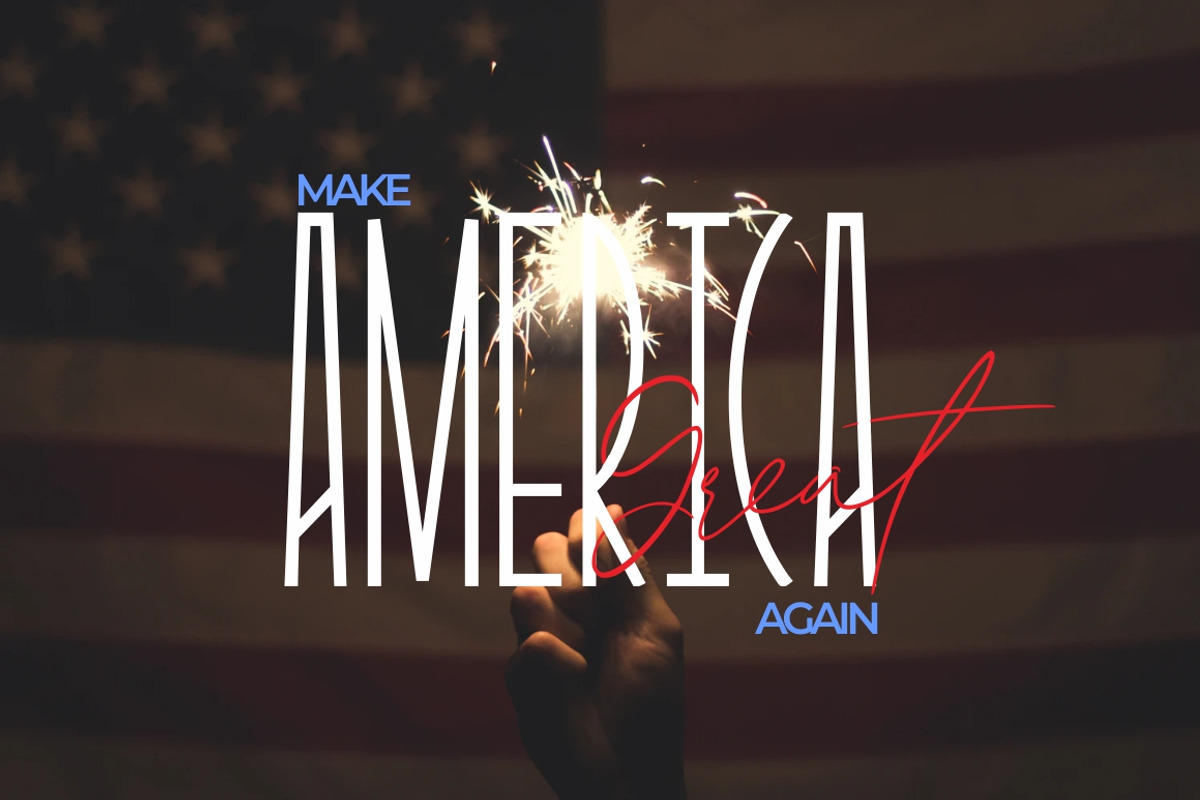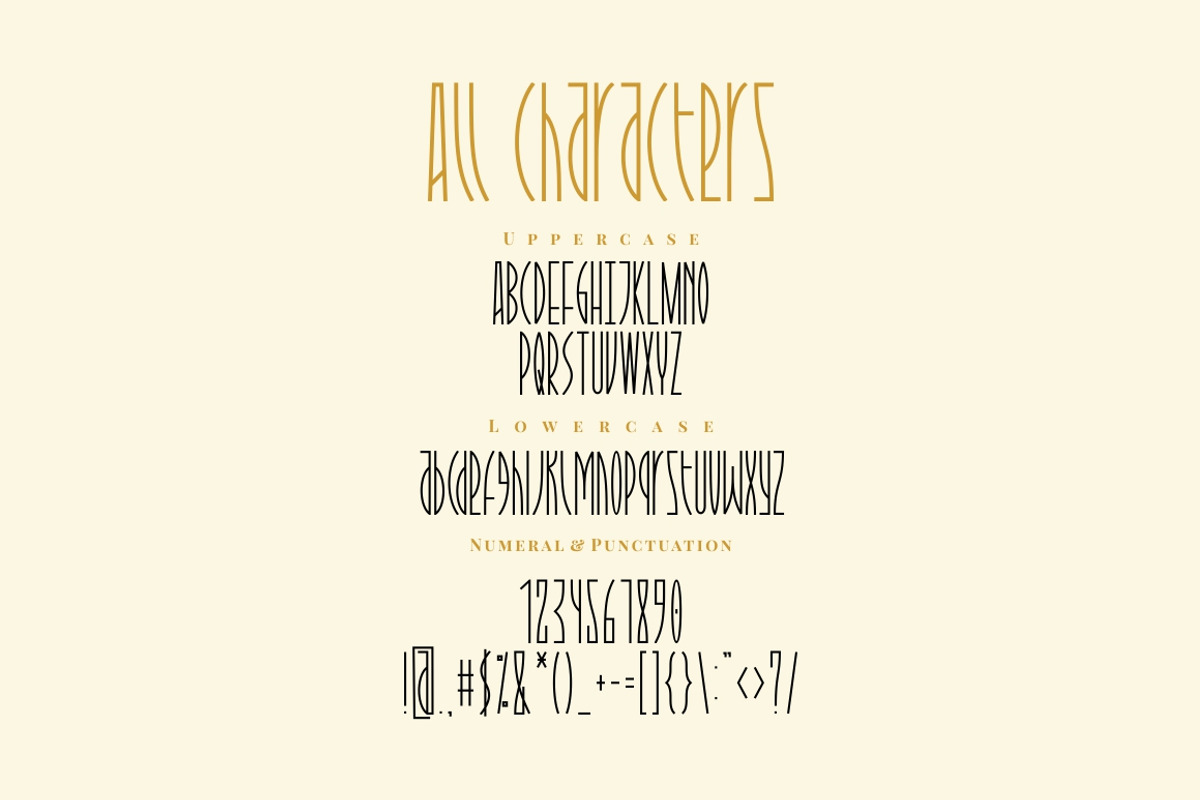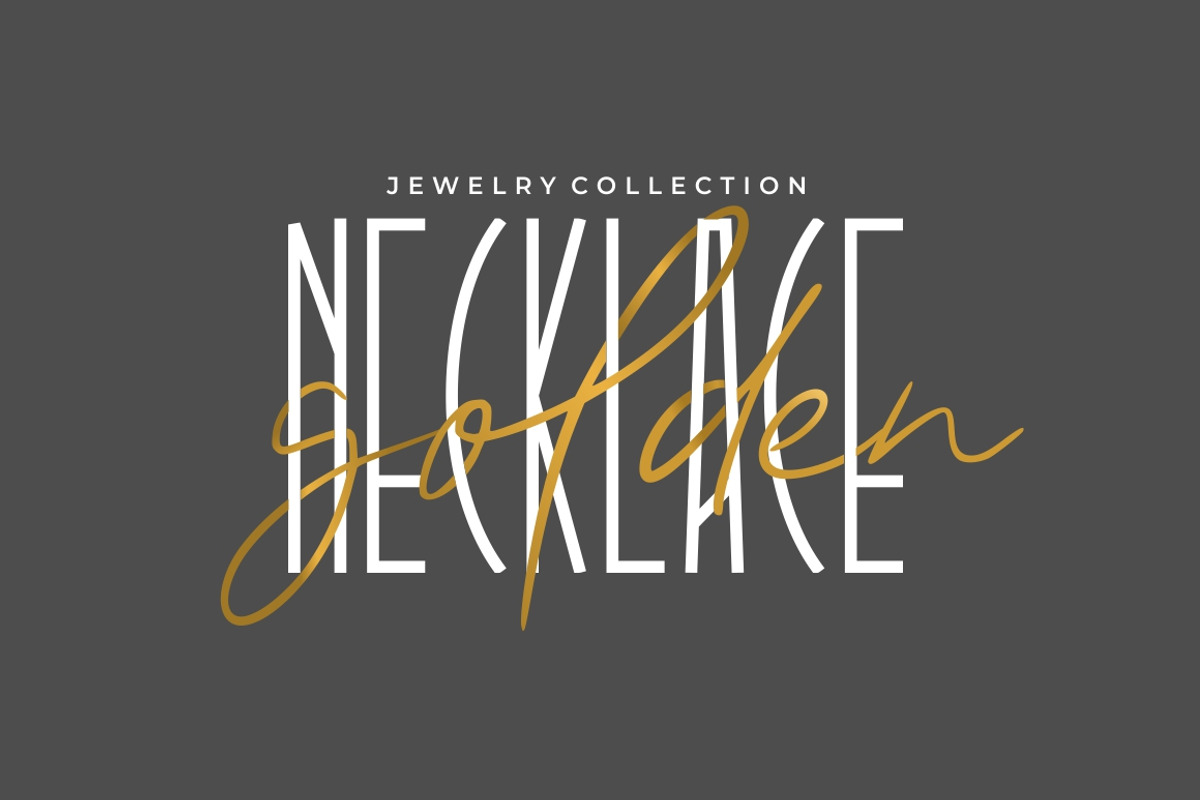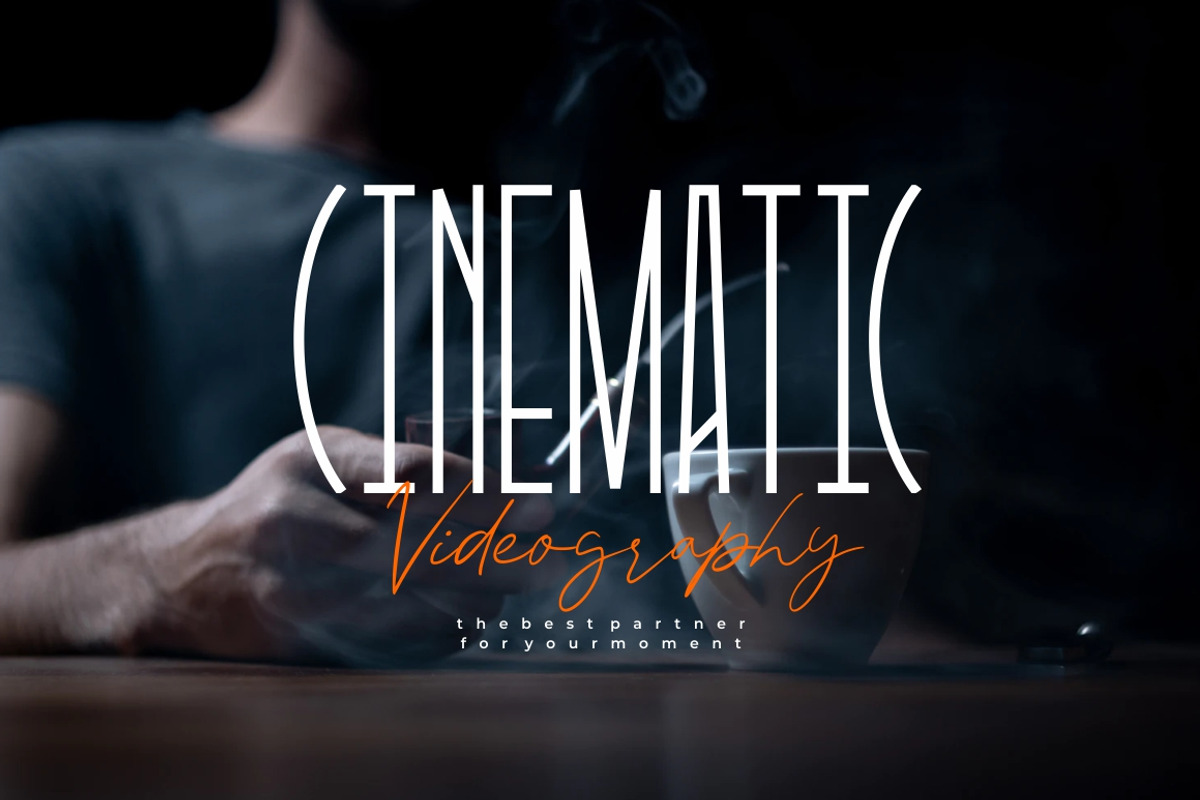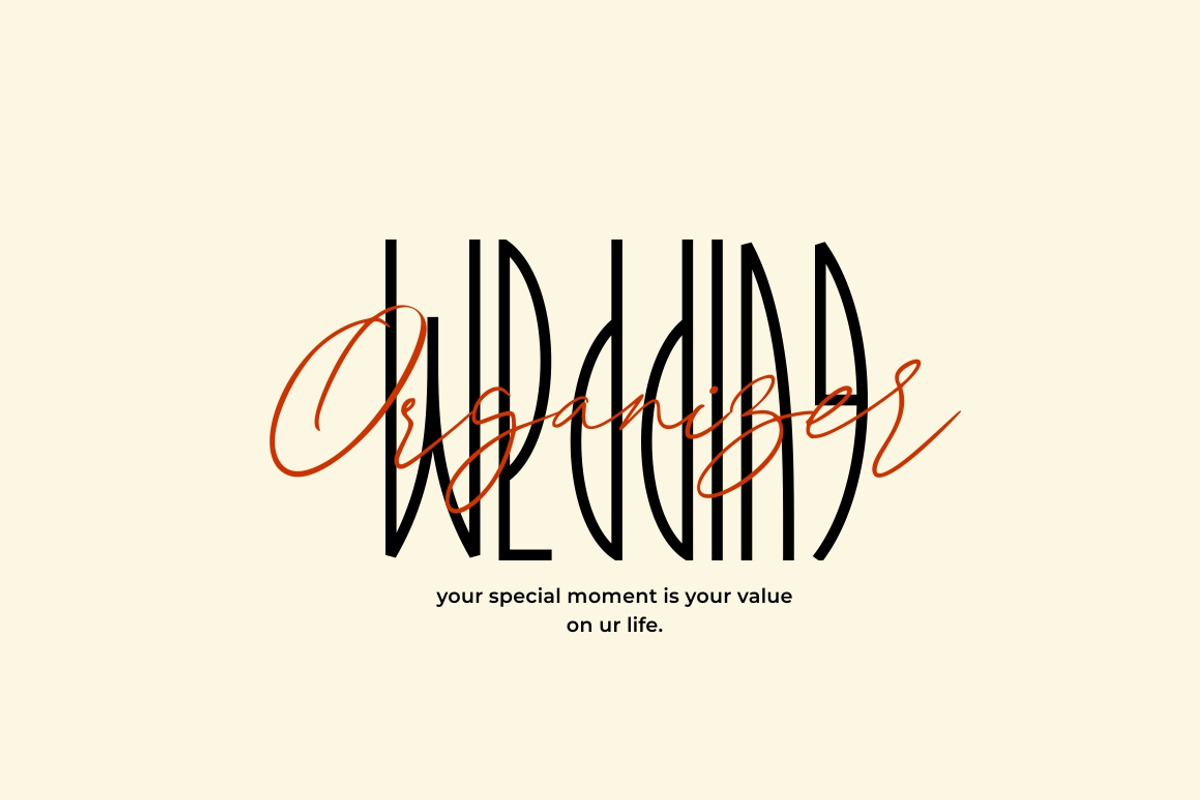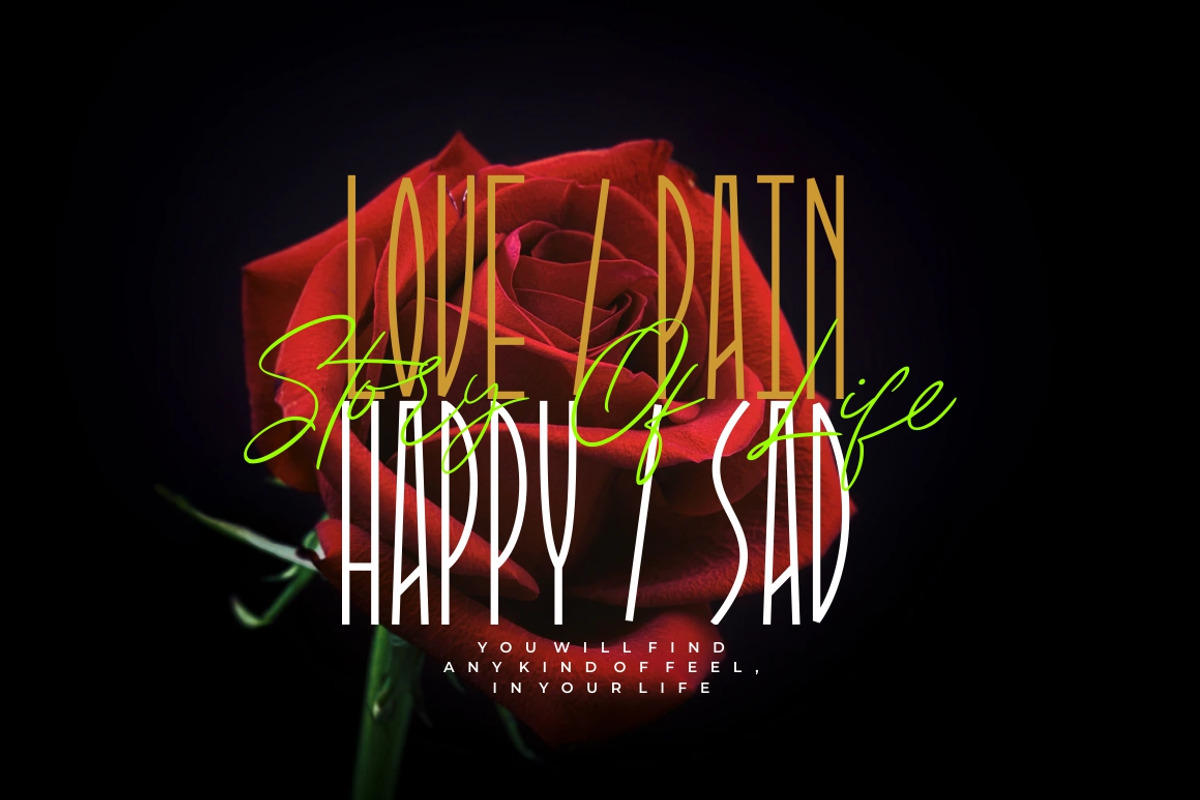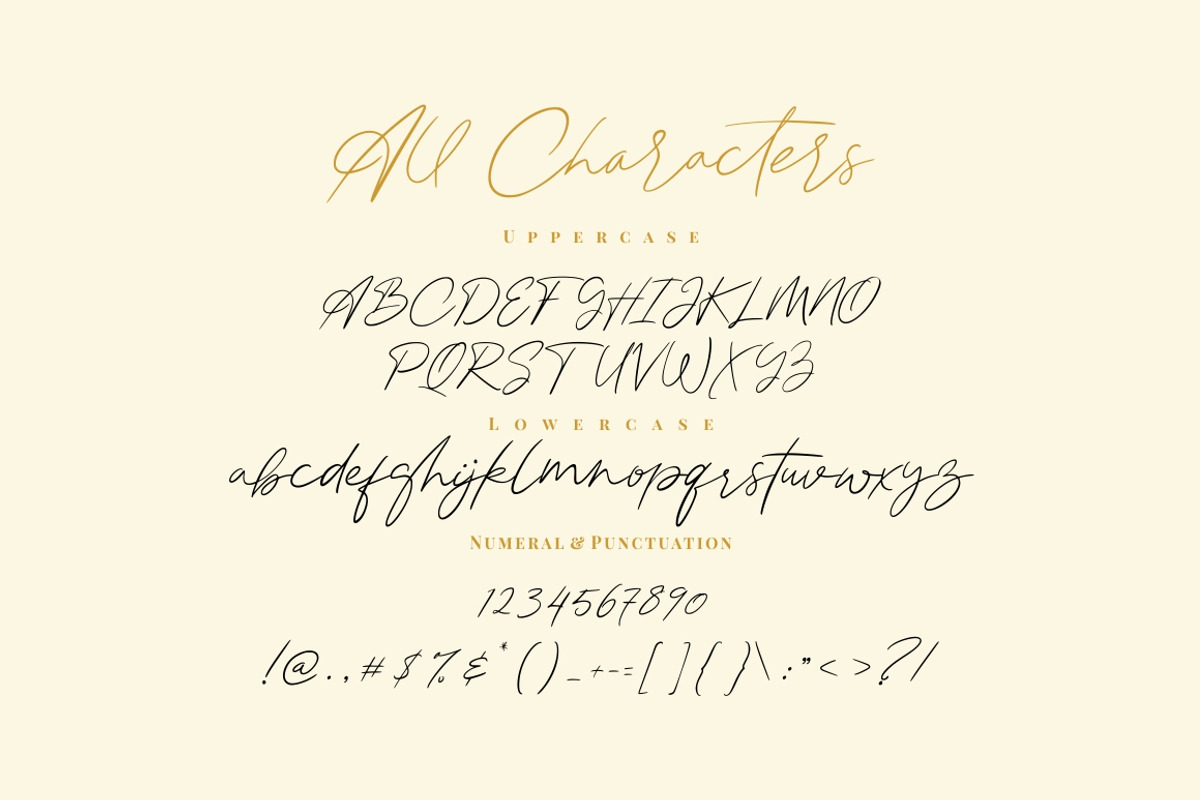
Attaira - Display & Signature Font
Attaira - Signature And Display Font
Attaira is a unique display and signature font. A perfect pair, can created to mix together. Attaira is perfectly suited to signature, wedding, social media, stationery, logo, typography quotes, magazine or book cover, website header, clothing, branding, packaging design and more.
Attaira Signature is a natural handwriting signature style font. Contains upper & lowercase characters, numerals, alternate and punctuation.
Attaira Sans is a modern and unique sans serif font. Contains upper & lowercase characters, numerals and punctuation.